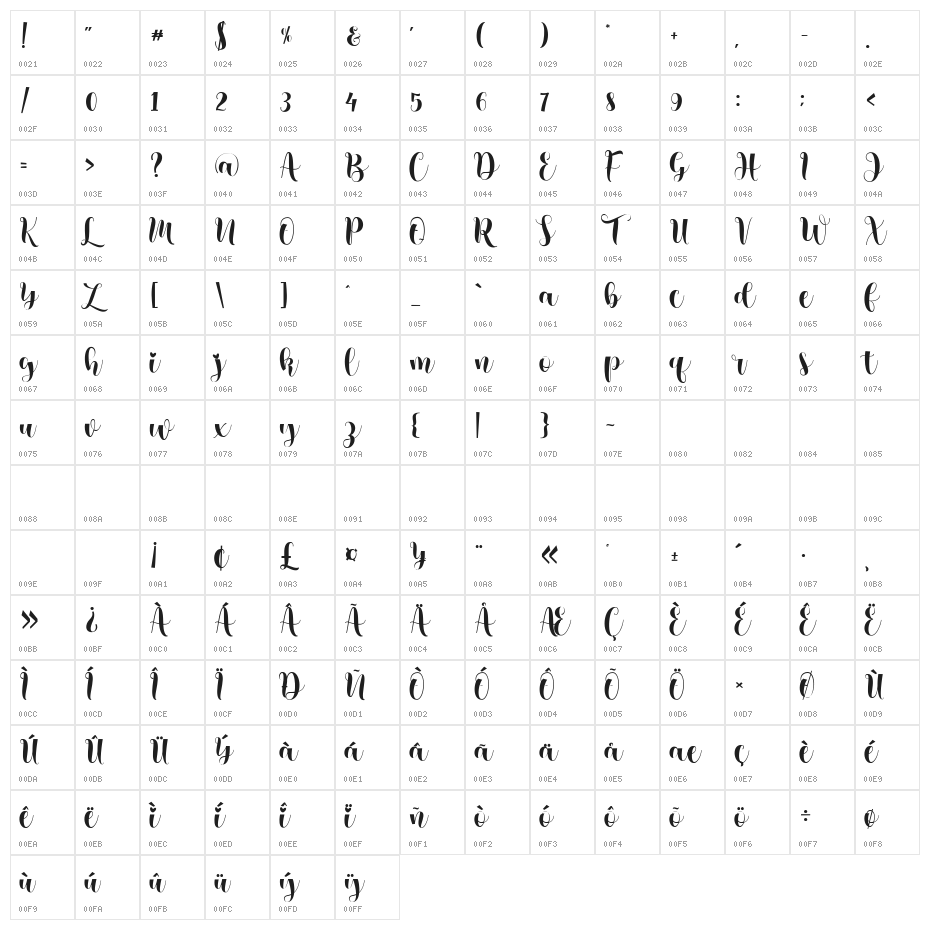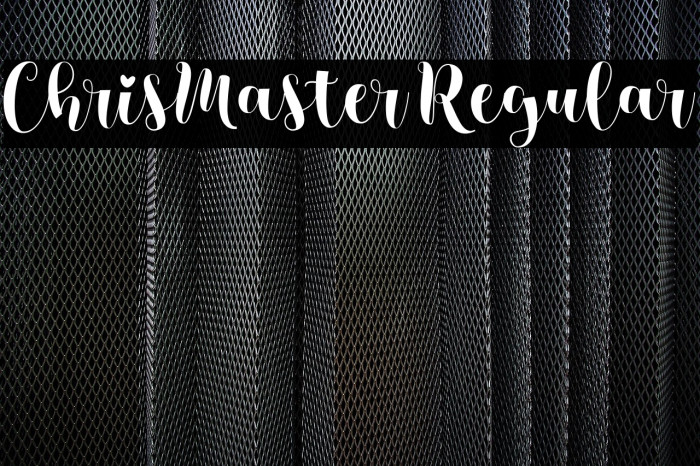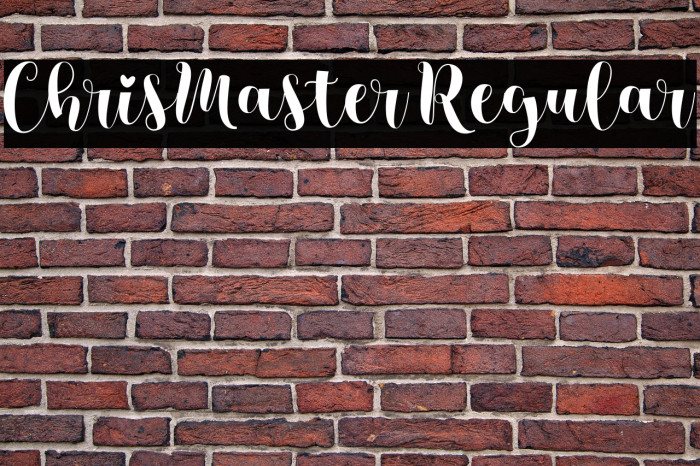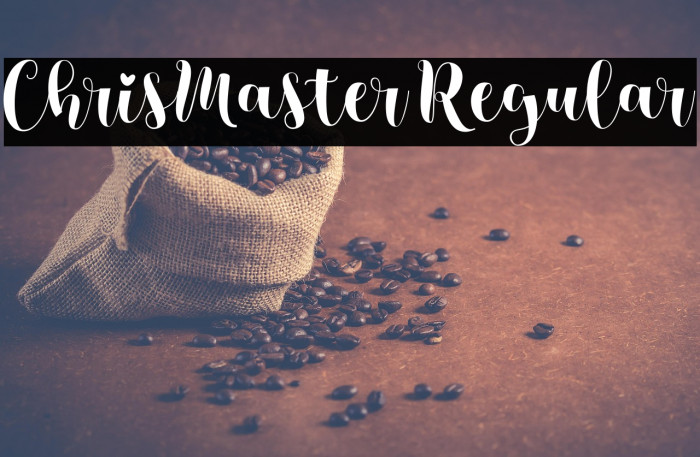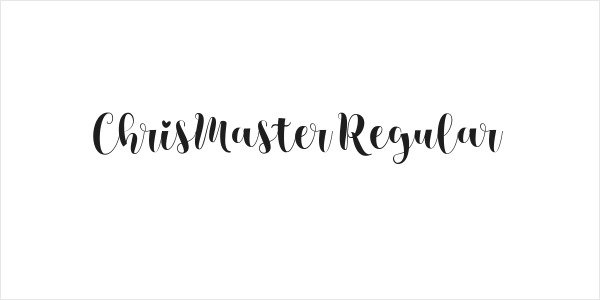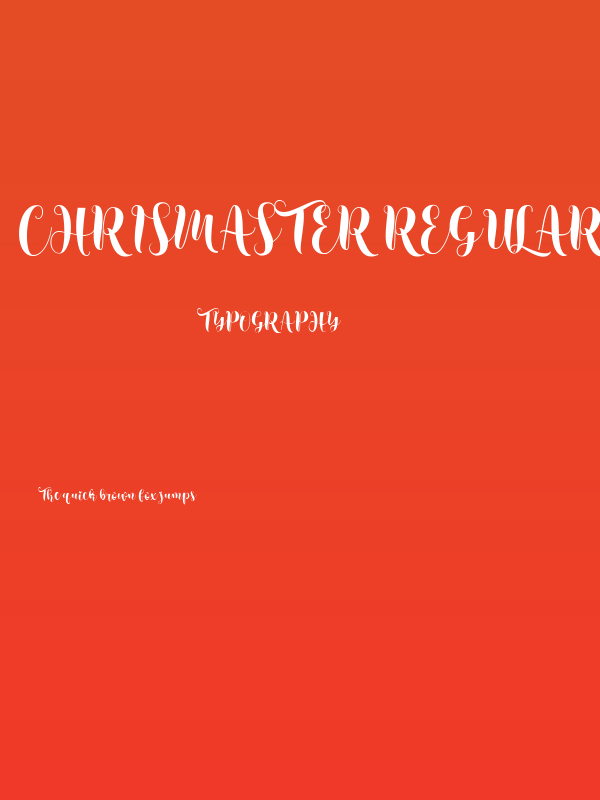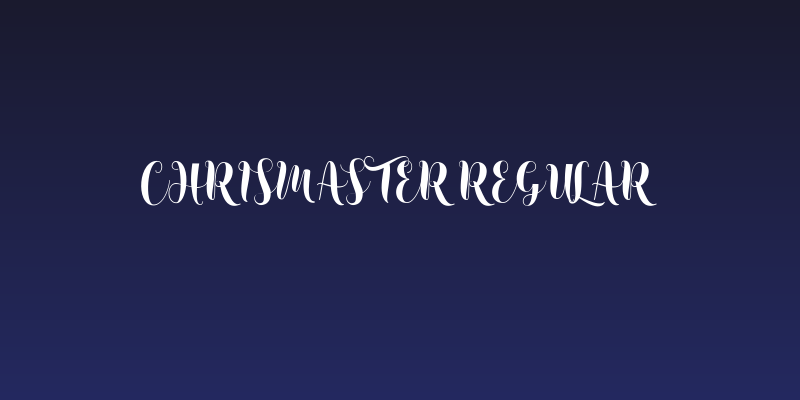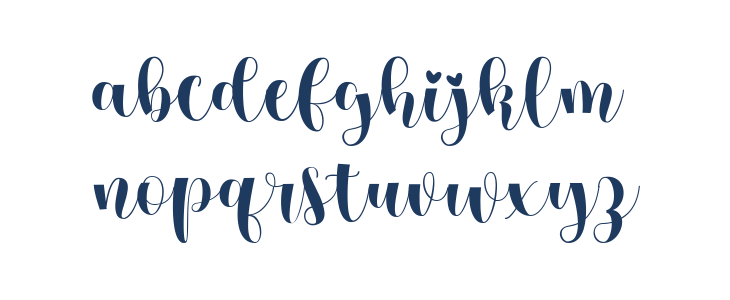
ChrisMaster Regular Font
ChrisMaster Regular Description
This font features an elegant and flowing script style, characterized by its smooth, cursive letterforms that exude a sense of sophistication and grace. The uppercase letters are particularly ornate, with sweeping curves and loops that add a decorative flair. The lowercase letters maintain a consistent flow, creating a harmonious and connected appearance. The numerals and special characters are designed to complement the overall style, ensuring a cohesive look across all text. This font is ideal for projects that require a touch of elegance and refinement.
Overall StyleElegant, Decorative
Use CaseLogos, Invitations, Decorative text
Proposed ProjectsIdeal for wedding invitations, greeting cards, branding, and elegant logo designs.